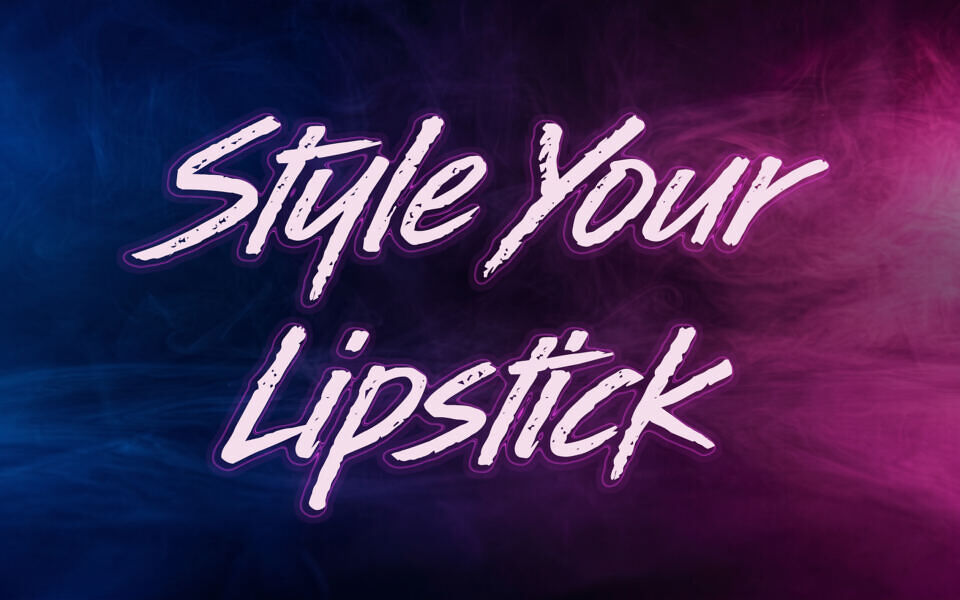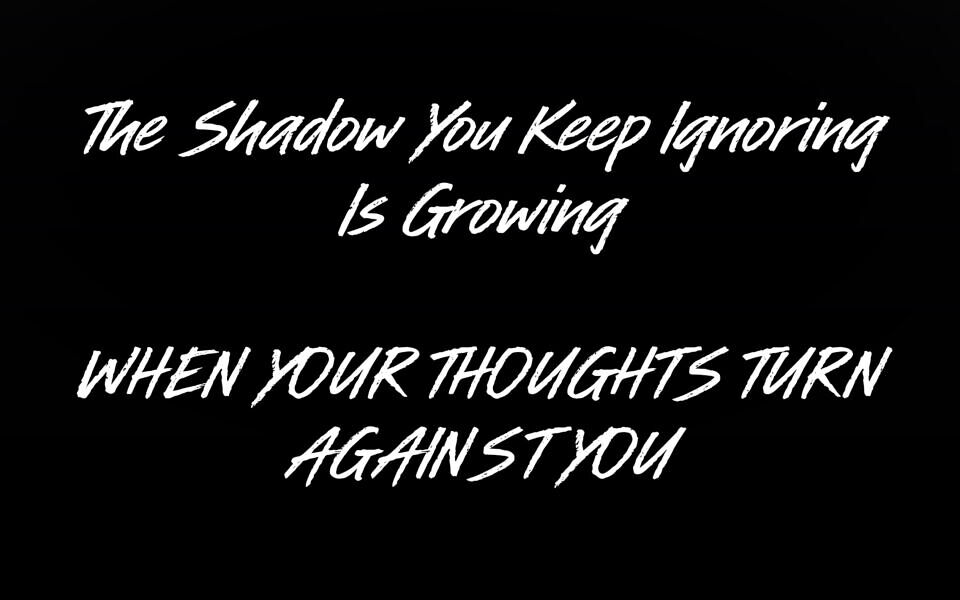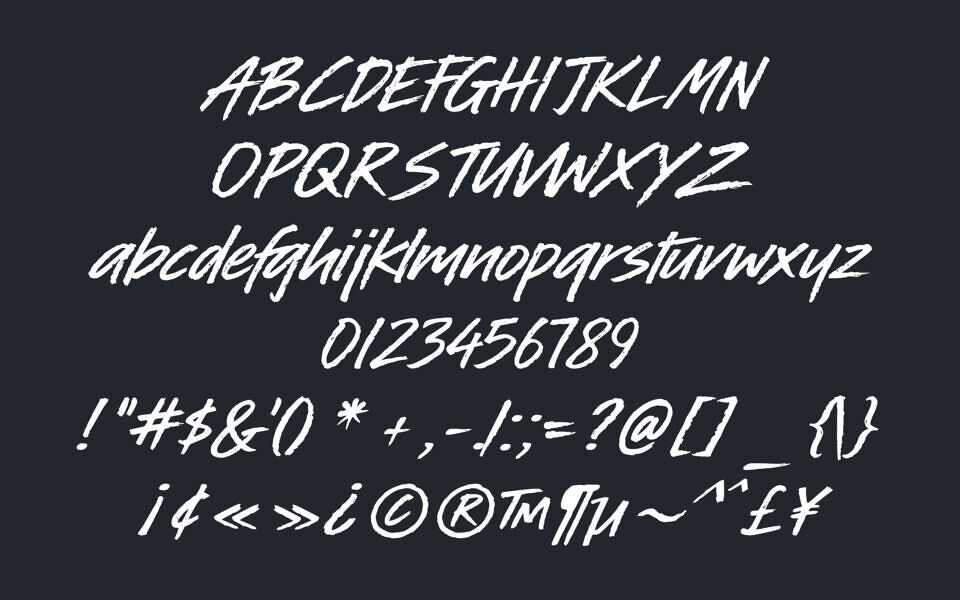
Style Your Lipstick is a handwritten brush script that captures the effortless elegance of a fashion sketch. Characterized by its fluid, rhythmic strokes and elongated terminals, this font mimics the expressive flair of a felt-tip marker or lipstick on glass.
Its casual yet sophisticated vibe makes it a perfect choice for boutique branding, lifestyle blogs, and editorial layouts. Balancing a sense of personal intimacy with high-end glamour, it brings a bespoke, “hand-signed” feel to any creative project. The font also fits perfectly into projects that seek a spooky feel.